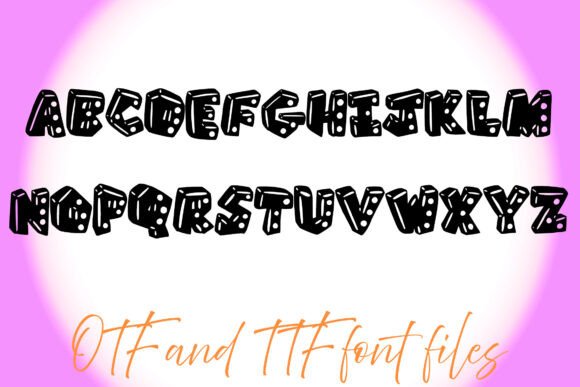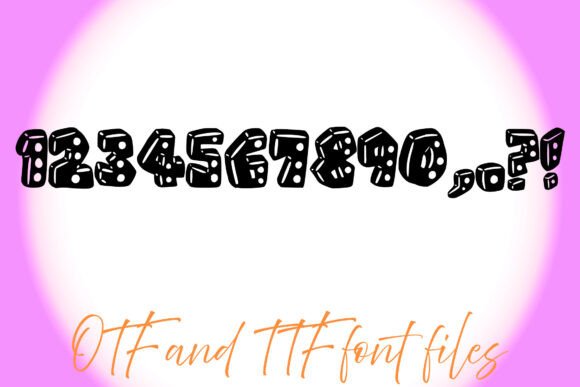
Dice Crazy Font: Unleash Your Creativity with this Unique and Quirky Font
Are you tired of using the same old fonts for your creative projects? Look no further! Dice Crazy Font is here to shake things up and bring a fresh wave of excitement to your designs. This incredibly unique and quirky font is masterfully designed to become a true favorite among designers and crafters alike. With its unparalleled charm and character, Dice Crazy Font has the potential to bring each of your creative ideas to the highest level!
What Makes Dice Crazy Font So Special?
Dice Crazy Font is not just another font – it’s an experience. Its distinctive design is inspired by the thrill of rolling dice, with each letter and number carefully crafted to resemble the sides of a dice. The result is a font that’s both playful and mesmerizing, perfect for adding a touch of whimsy to any project. Whether you’re working on a logo, a poster, or a digital graphic, Dice Crazy Font is sure to make your design stand out from the crowd.
Key Features of Dice Crazy Font
- Unique and Quirky Design: Dice Crazy Font boasts a one-of-a-kind design that’s sure to capture attention and spark imagination.
- Highly Versatile: This font can be used for a wide range of projects, from logos and posters to digital graphics and crafts.
- Easy to Read: Despite its playful design, Dice Crazy Font remains highly legible, making it perfect for both headlines and body text.
- Extensive Character Set: This font includes a comprehensive set of characters, numbers, and symbols, giving you endless possibilities for creative expression.
Dice Crazy Font is a dream come true for designers and crafters looking to add a personal touch to their work. Whether you’re creating custom stationery, crafting unique jewelry, or designing eye-catching posters, this font is sure to inspire your creativity and take your projects to the next level. Its versatility and charm make it an excellent choice for a wide range of applications, from:
- Digital graphics and social media assets
- Custom stationery and invitations
Tips for Using Dice Crazy Font
To get the most out of Dice Crazy Font, here are a few tips to keep in mind:
- Experiment with Colors: Dice Crazy Font looks amazing in bold, bright colors. Try pairing it with contrasting colors to create a striking visual effect.
- Play with Sizes: This font looks great in both large and small sizes. Experiment with different sizes to create visual interest and hierarchy.
- Mix and Match: Don’t be afraid to combine Dice Crazy Font with other fonts to create a unique and eye-catching design.
In conclusion, Dice Crazy Font is an incredibly unique and quirky font that’s sure to become a favorite among designers and crafters. Its distinctive design, versatility, and charm make it the perfect choice for adding a touch of whimsy to any project. Whether you’re looking to create a bold logo, a playful poster, or a custom craft project, Dice Crazy Font is the perfect tool to help you unleash your creativity and bring your ideas to life!